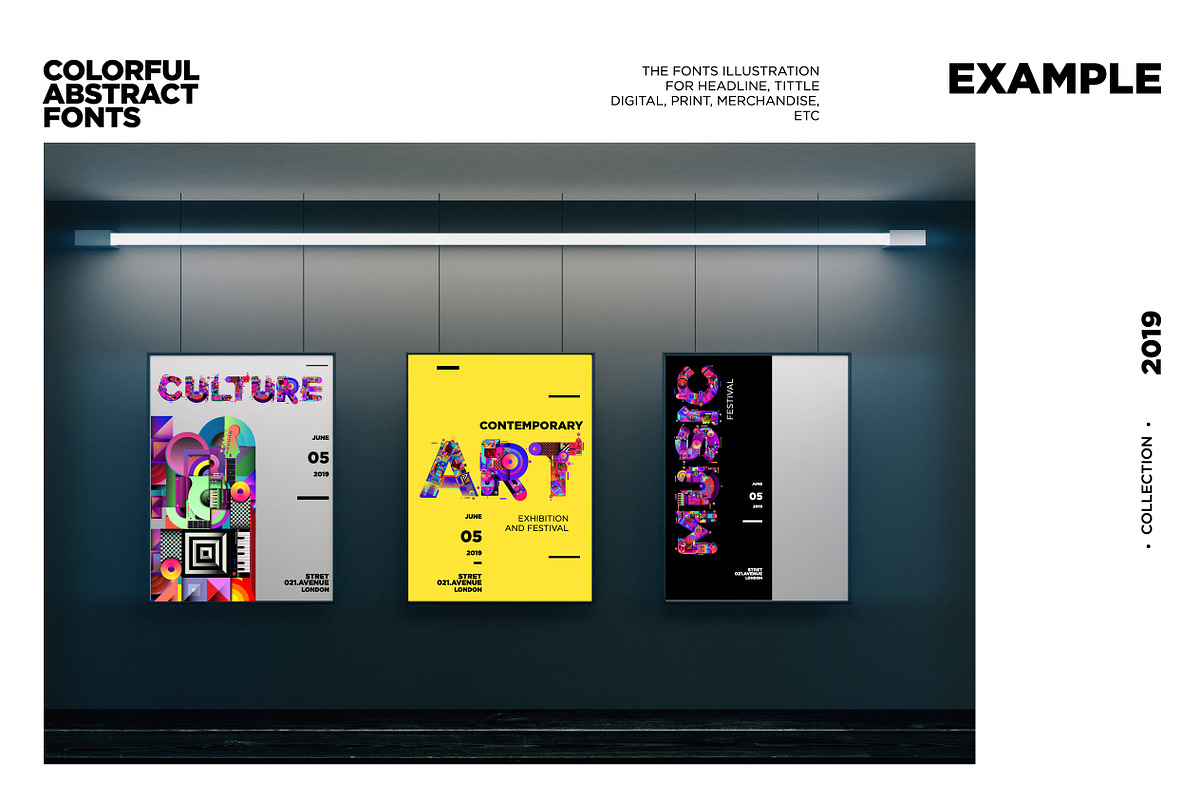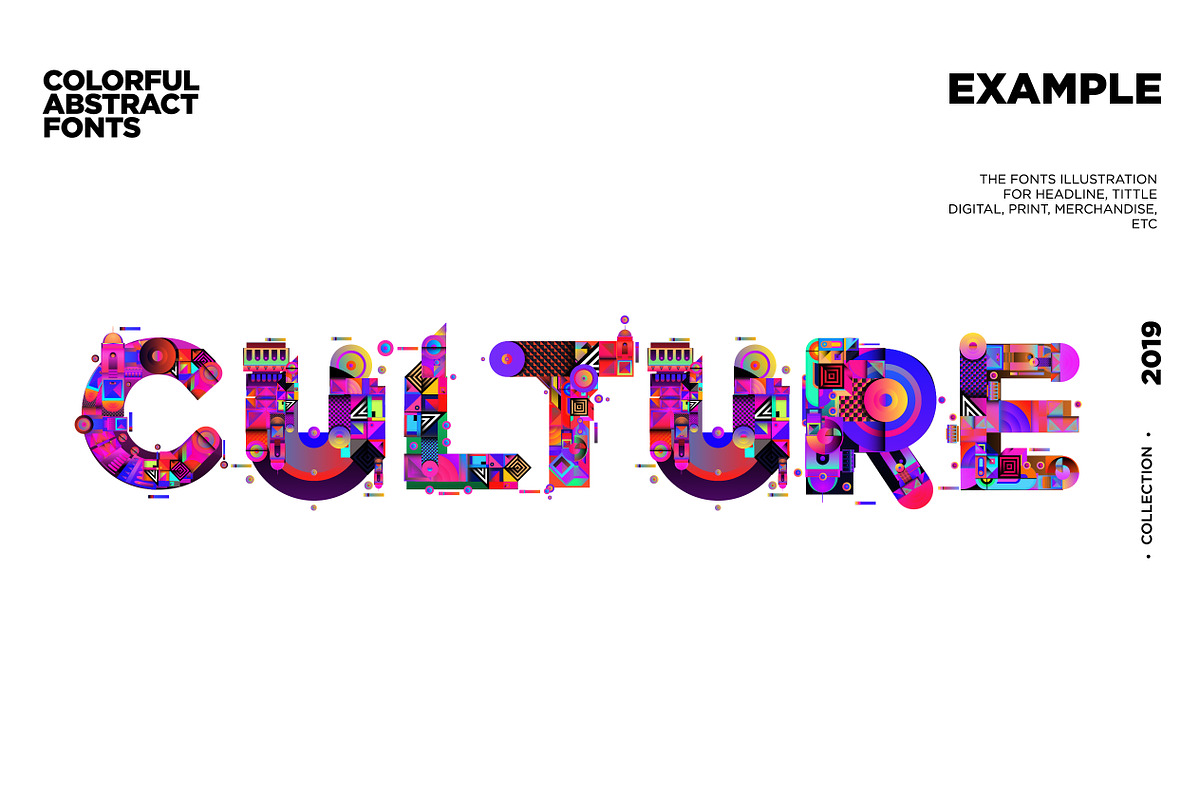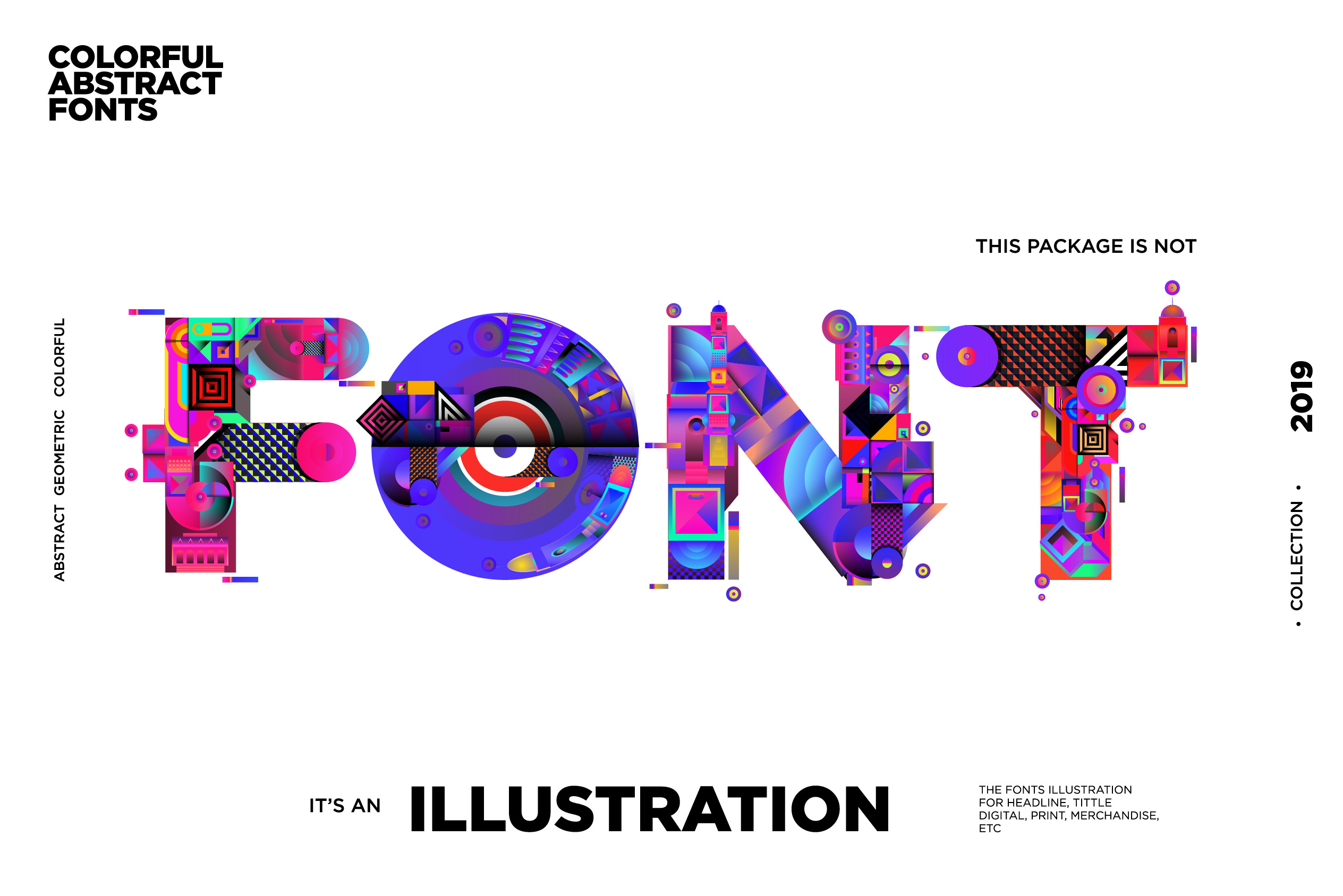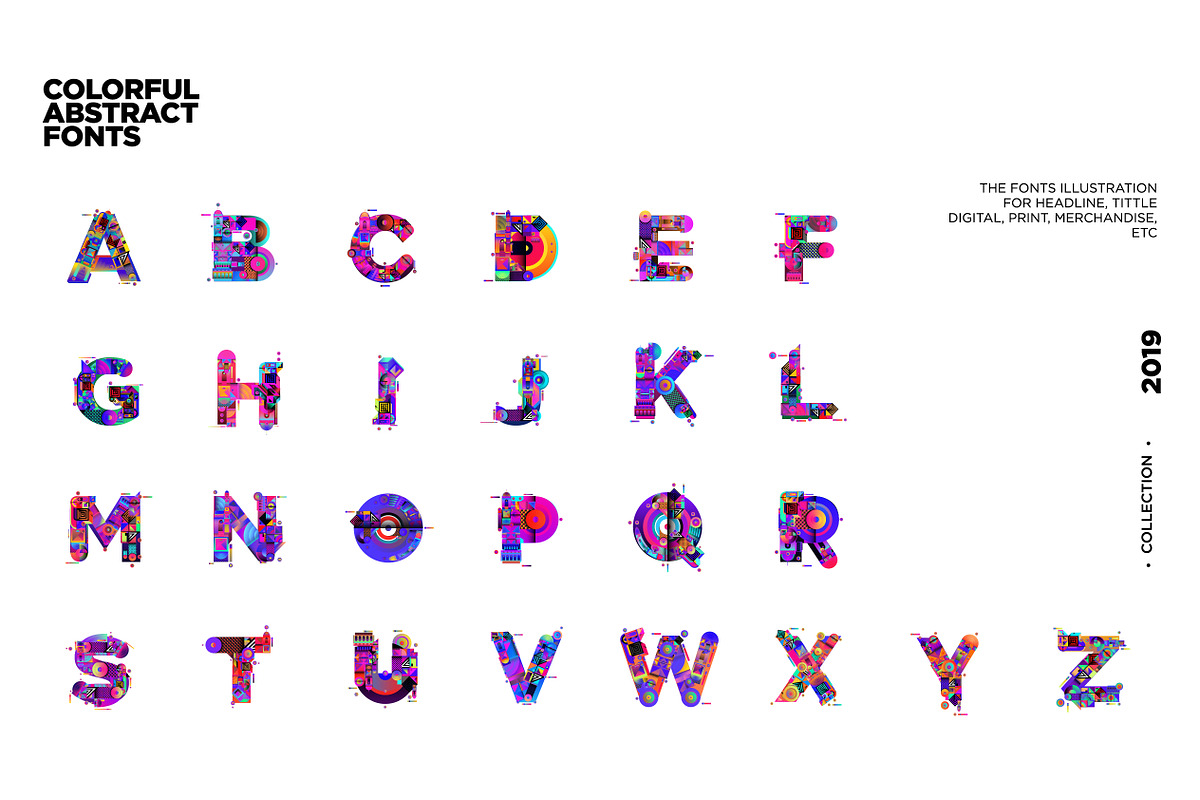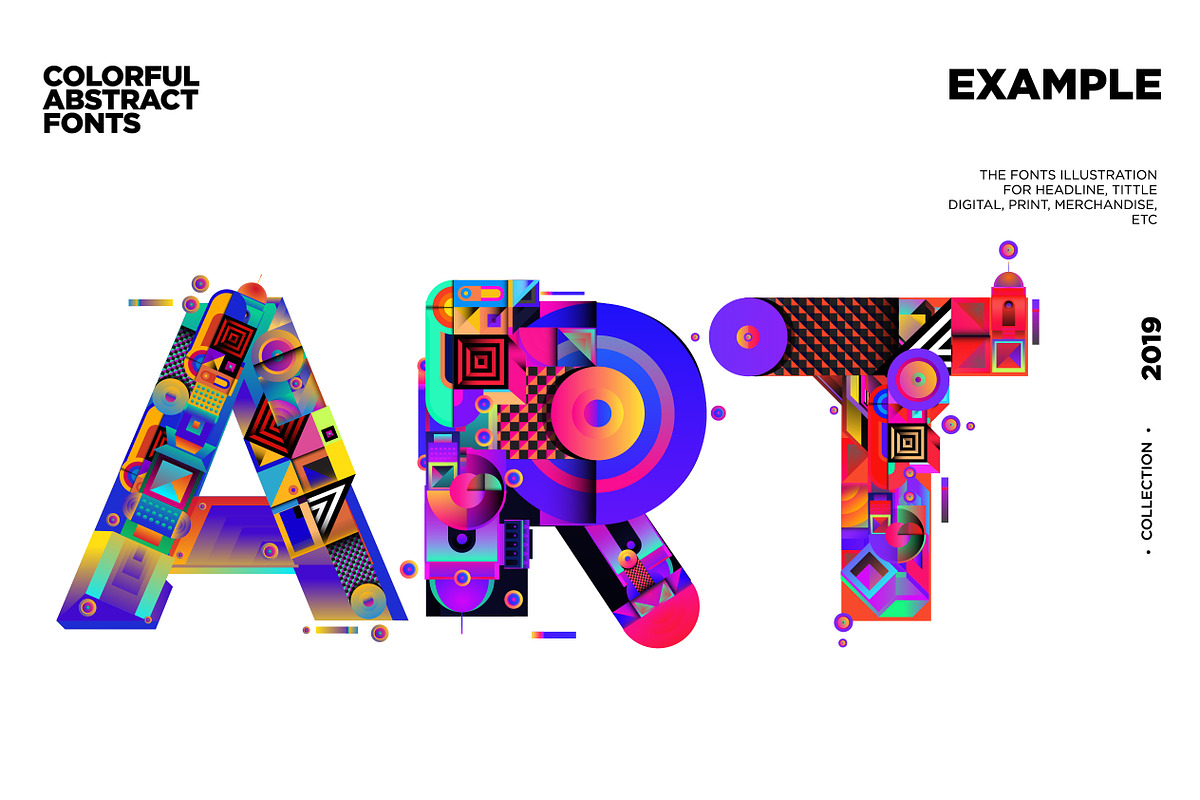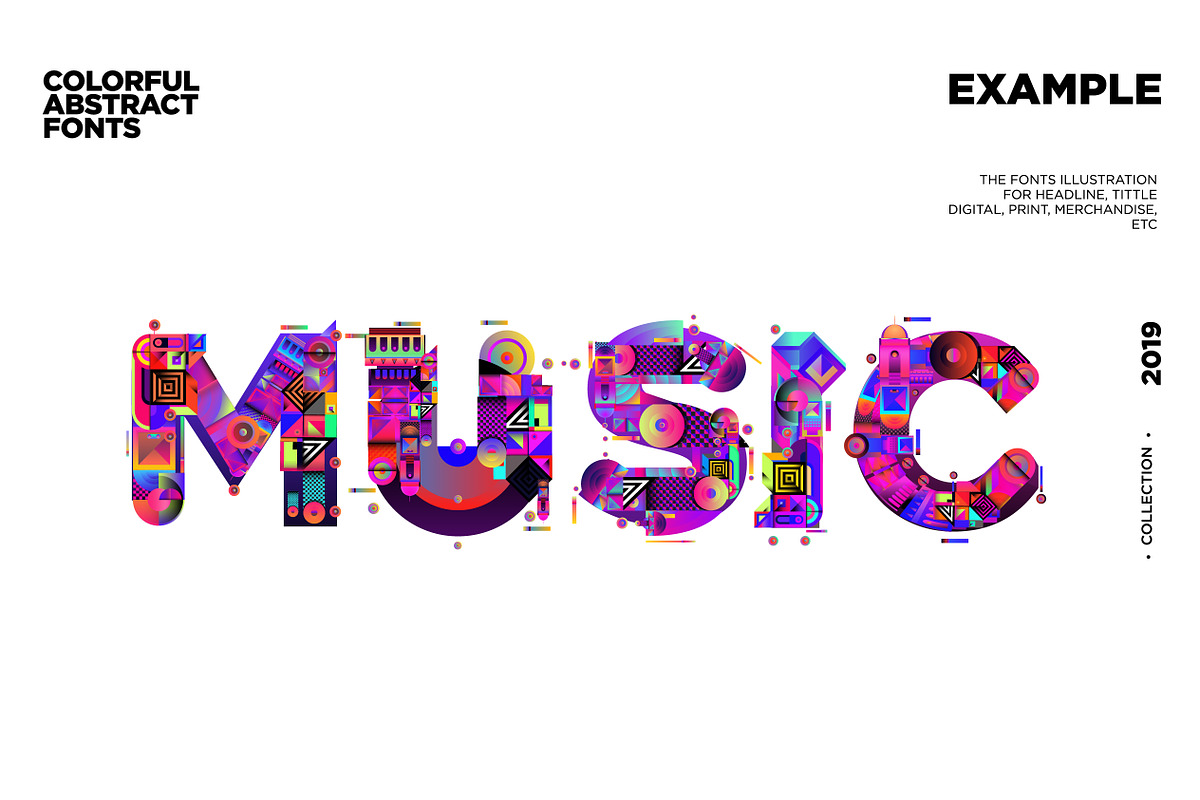
Colorful Alphabets Font Illustration
VColorful Abstract Font Illustration is not in font format, but in vector format . This Font illustration are ready for poster, flyers, web graphic, landing page, banner, icon, map, infographics, social media, books, merchandises, fabric printed, wallpaper, event tools, and other related illustration purpose. The file is on single zipped and the size is 139.46 MB. Hope you enjoy it :).